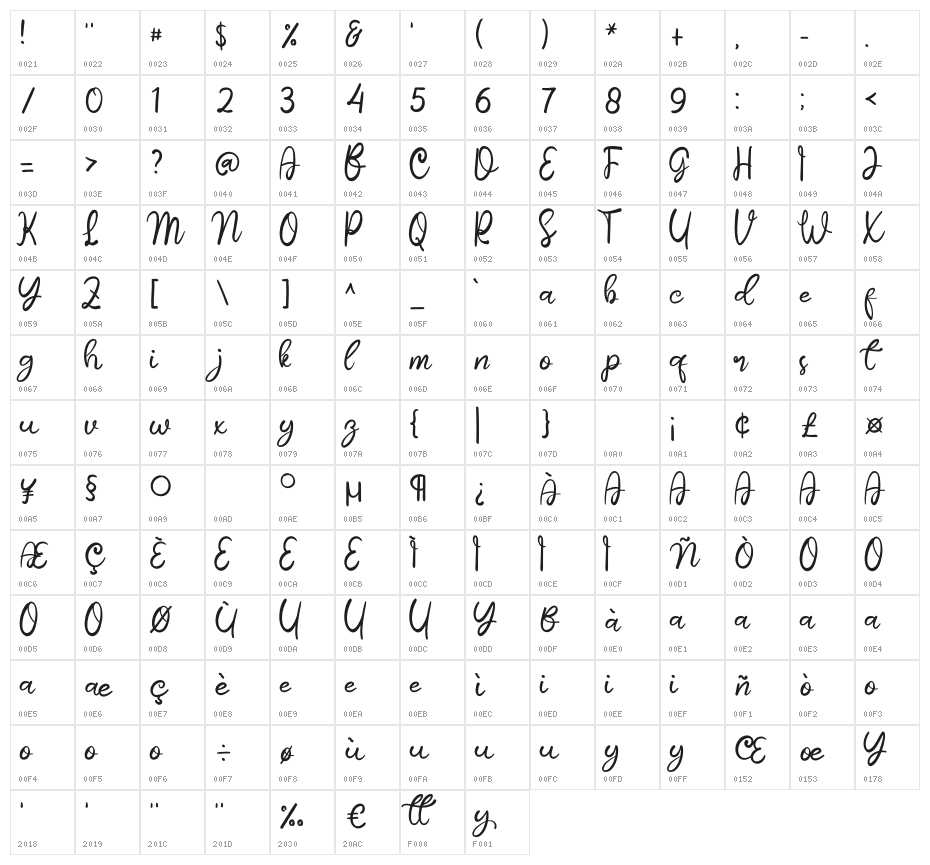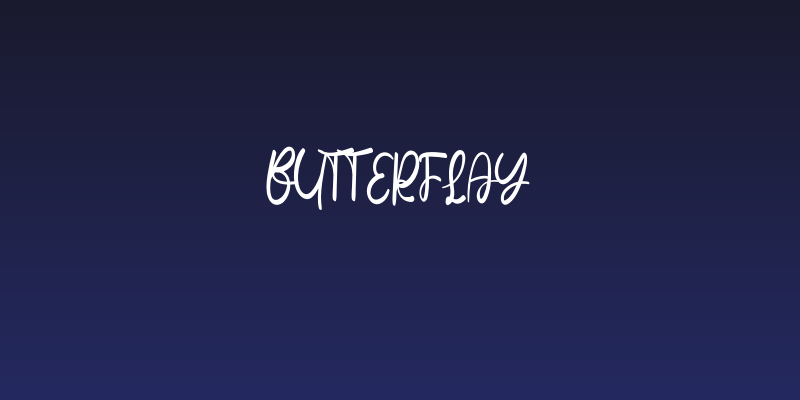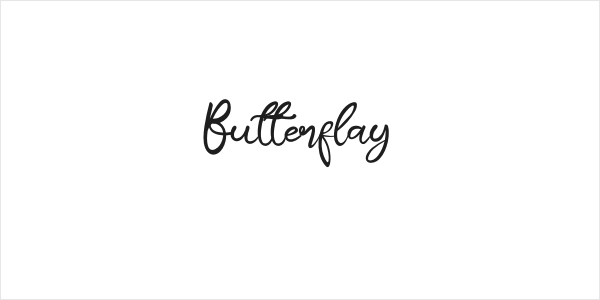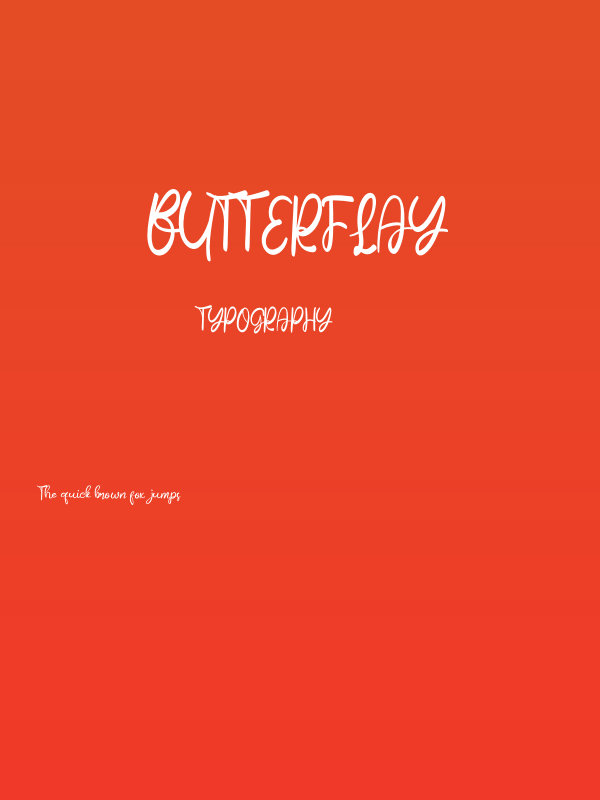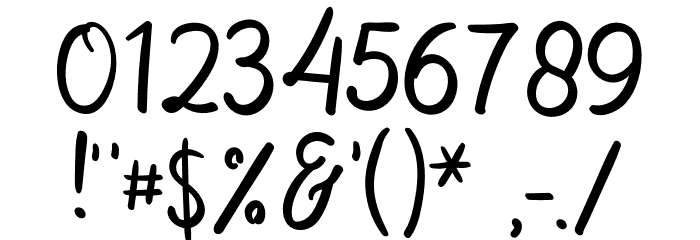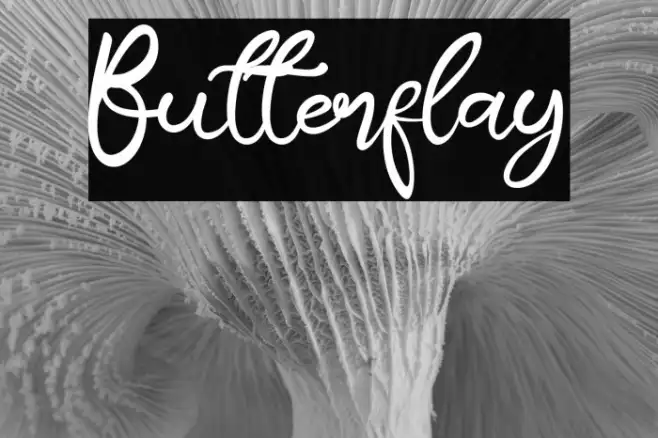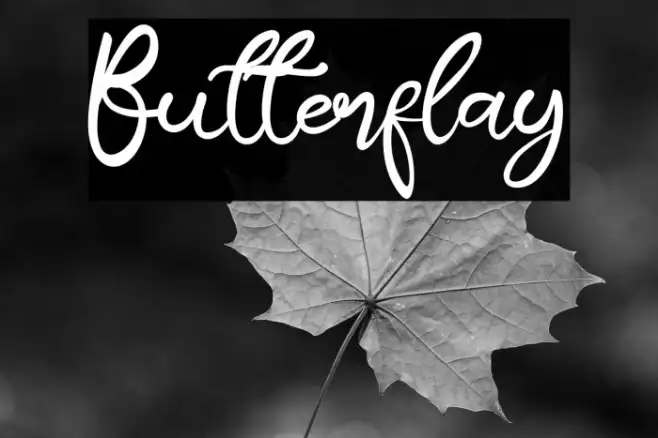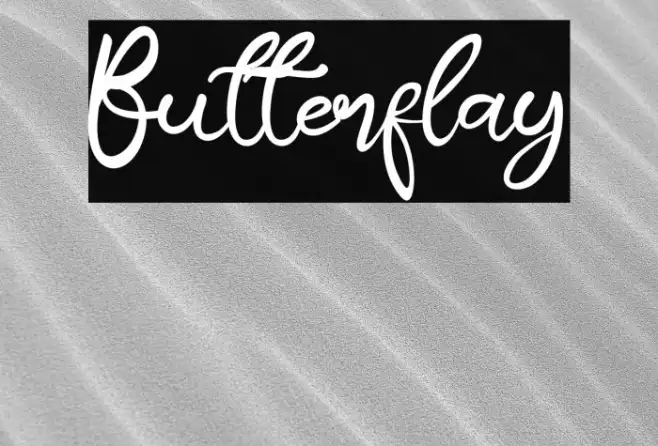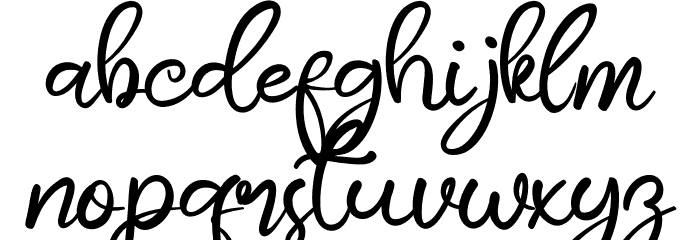
Butterflay Font
Butterflay Description
This font features a playful and flowing script style, characterized by its smooth, cursive strokes and elegant loops. The letters are interconnected, creating a sense of continuity and fluidity. The uppercase letters are bold and expressive, while the lowercase letters maintain a consistent rhythm with a slightly more delicate touch. Numbers and special characters are designed to match the overall aesthetic, ensuring a cohesive look. The font's whimsical nature makes it ideal for creative and artistic projects, adding a personal and handcrafted feel to any design.